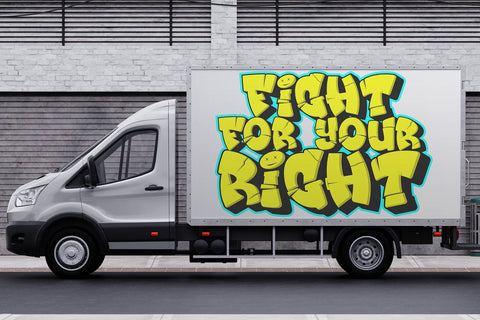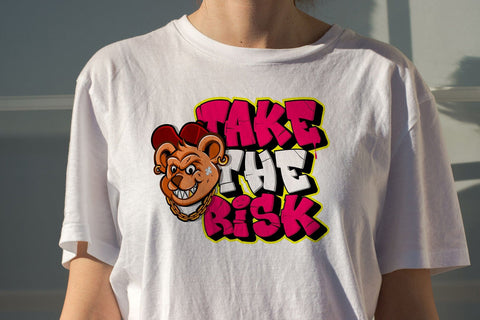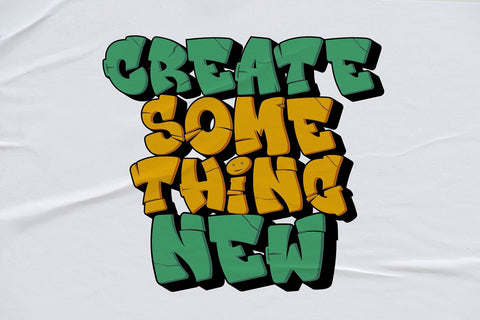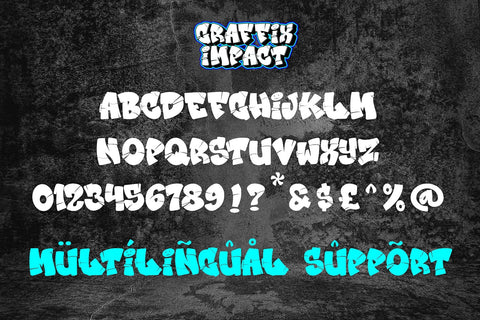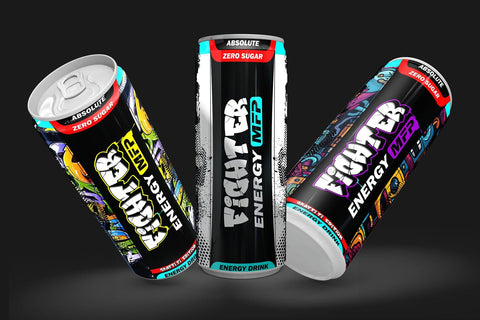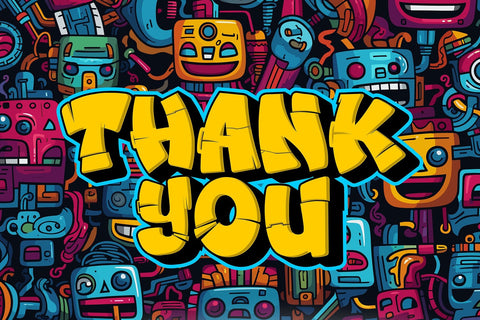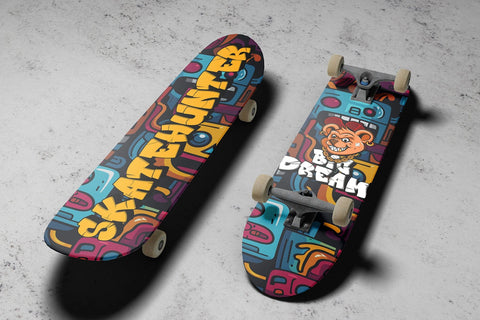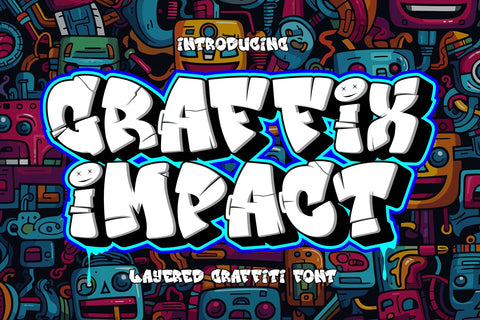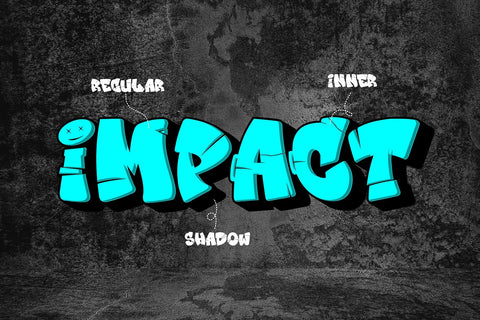
Graffix Impact - 3d Layered Break Graffiti Font
"Graffix Impact" is a 3D layered graffiti font that includes a break or interruption within the characters. Fonts like this offer a three-dimensional appearance by employing multiple layers to create depth and dimensionality. The "break" in characters can introduce a stylistic element, enhancing the overall visual impact.
- Graffiti Characters looks